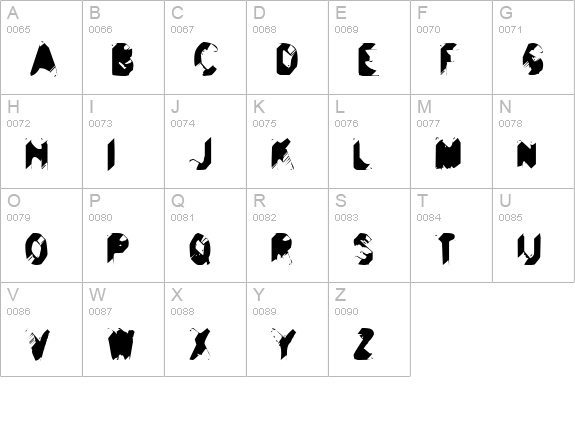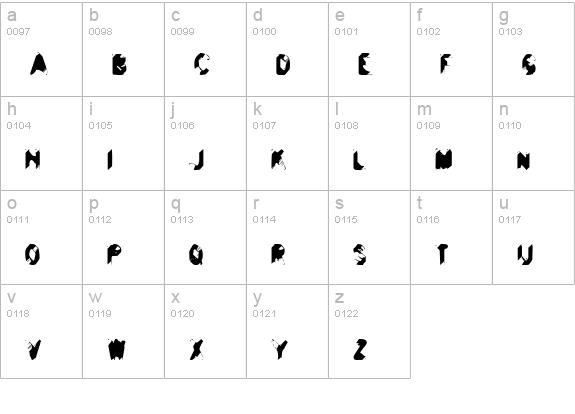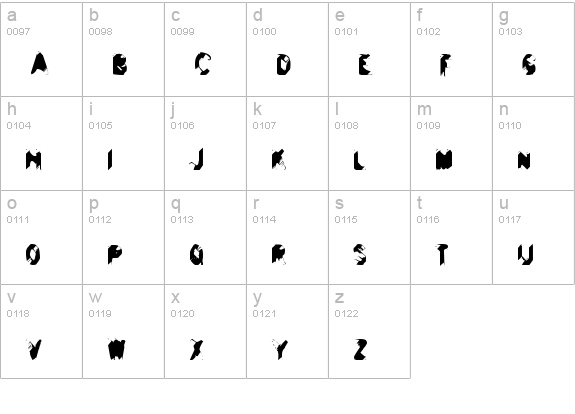
Balls to the Wall Font Details
Balls to the Wall font is a bold and striking display typeface that commands attention with its powerful and dynamic appearance. This font features strong, thick lines that give it a solid and impactful presence, making it perfect for headlines, posters, logos, and other design projects that require a bold statement. The unique design of Balls to the Wall font exudes confidence and strength, making it an ideal choice for projects that need to make a bold and memorable impression. Best of all, Balls to the Wall font is available for free download at FontsMarket.com! This means you can easily access this eye-catching typeface and incorporate it into your designs without any cost. Whether you're a designer looking to add a powerful touch to your projects or someone in need of a font that stands out from the crowd, Balls to the Wall font is a fantastic choice that won't break the bank. Download it today and see how it can elevate your designs to the next level!